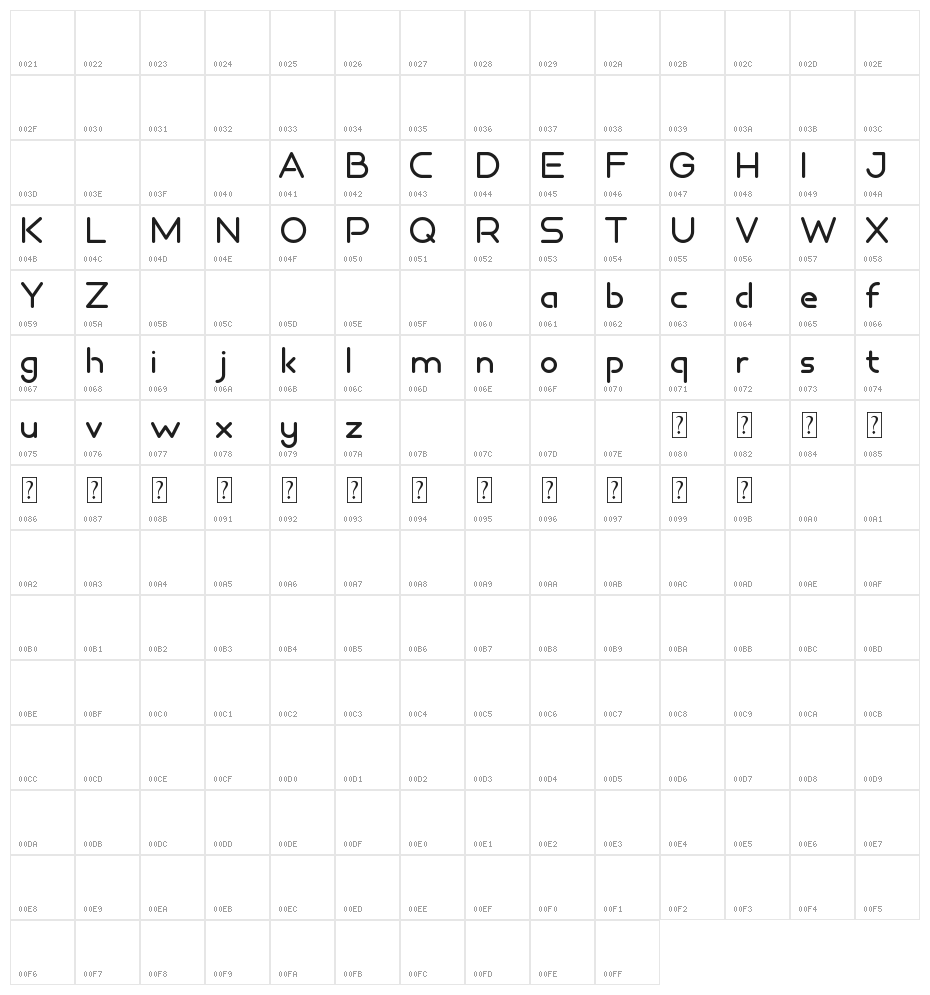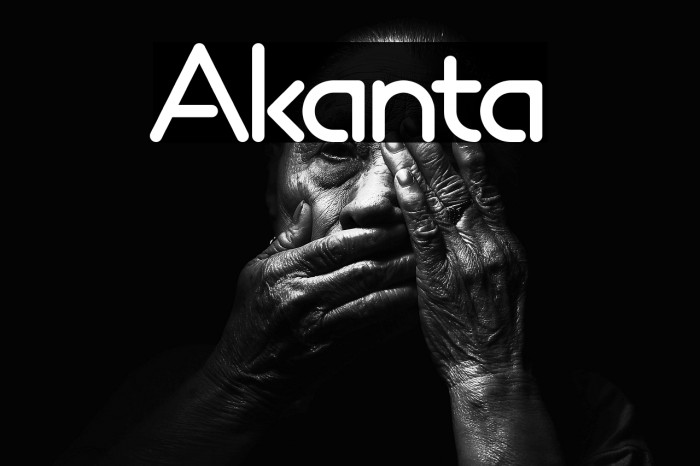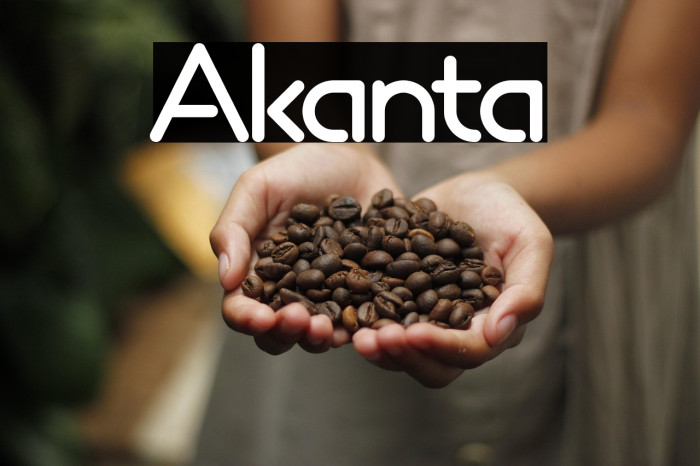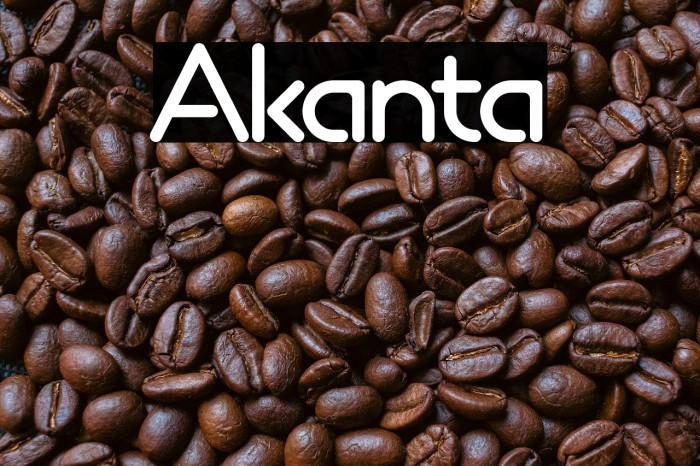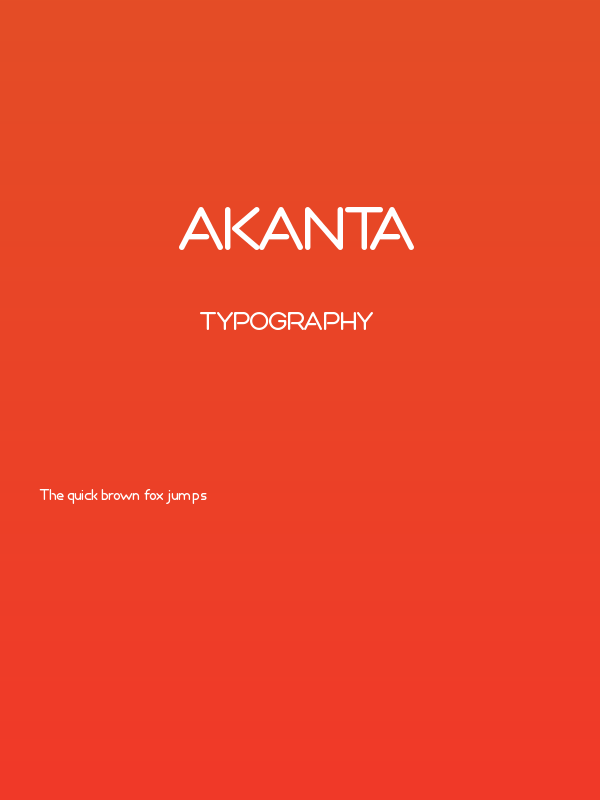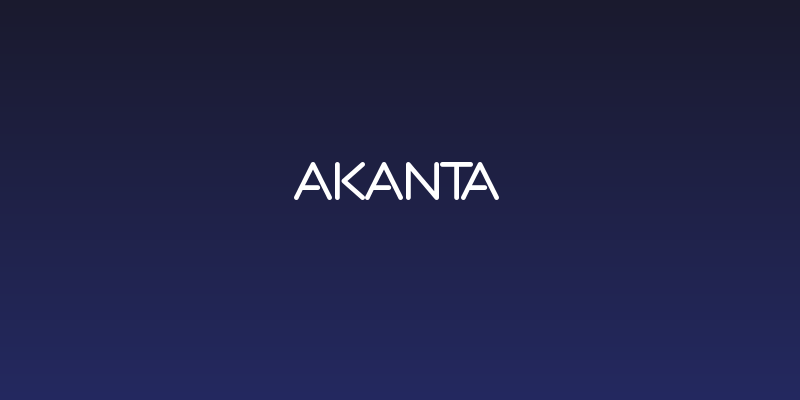
Akanta Font
Akanta Description
This font features a modern, geometric design with rounded edges and a clean, minimalistic appearance. The uppercase and lowercase letters maintain a consistent stroke width, giving it a uniform look. The characters are well-balanced, with a slight emphasis on circular shapes, particularly noticeable in letters like 'O', 'C', and 'G'. The numerals and special characters follow the same design principles, ensuring a cohesive overall style. Its simplicity and clarity make it highly legible, suitable for various design applications.
| Use Case | Headlines, Logos, Web design |
| Proposed Projects | Ideal for tech branding, modern web design, app interfaces, and minimalist posters. |